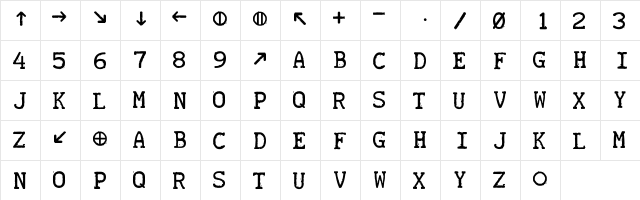
TELETYPE 1945-1985 Regular
| Foundry | E. V. Norat II |
| Designer | E. V. Norat II |
Design Context for TELETYPE 1945-1985 Typeface
TELETYPE 1945-1985 offers clean, dependable letterforms without strong stylistic allegiance, making it a practical choice for designers who need flexibility.